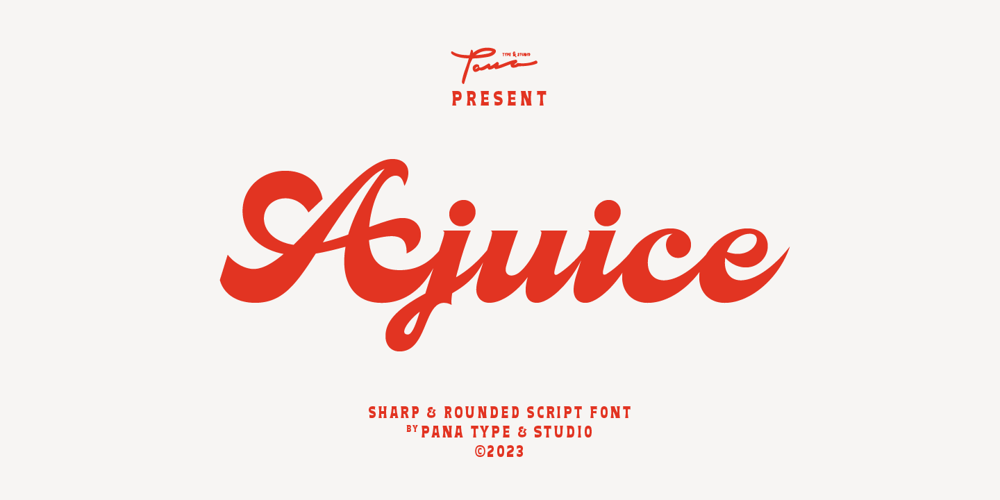
Ajuice Script Font Family was designed by Ajusia and published by Panatype Studio. Ajuice Script contains 2 styles and family package options. Ajuice Script Font is a high contrast script font with a romantic theme with two font styles ( Regular & Round ) which is perfect for your designs that want a romantic style, modern vintage, elegant, soft, and carefully crafted for all graphic design needs.File Includes :OPENTYPE FEATUREContextual AlternatesFollowing Language Support :LATIN EXTENDED ( Western European, Central European, South Eastern European )